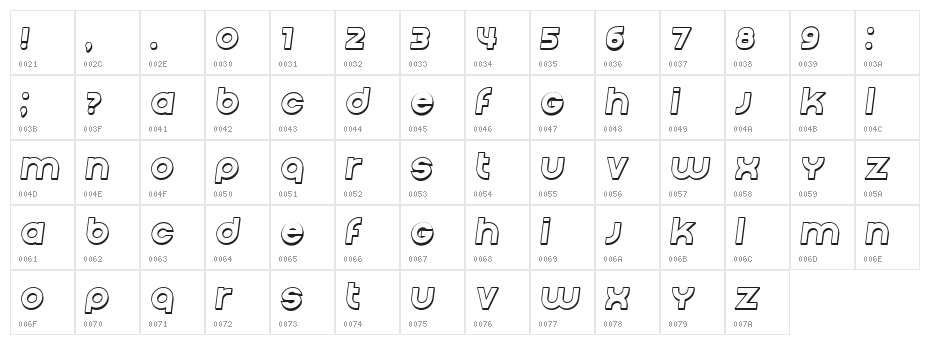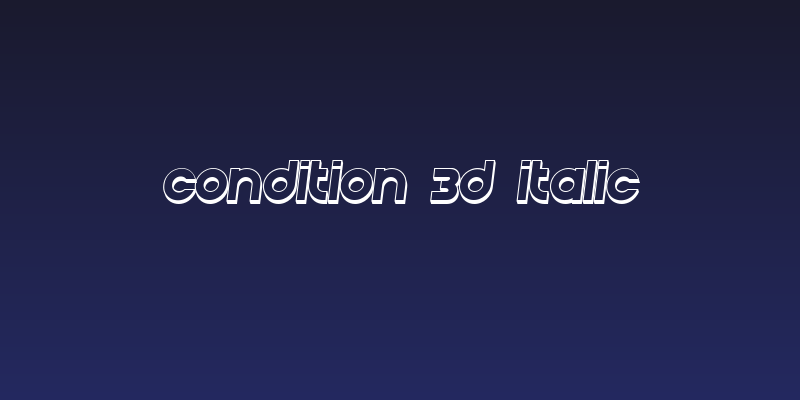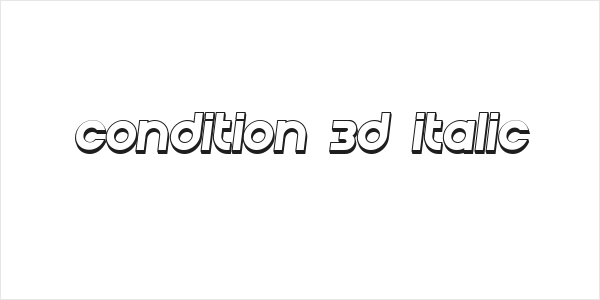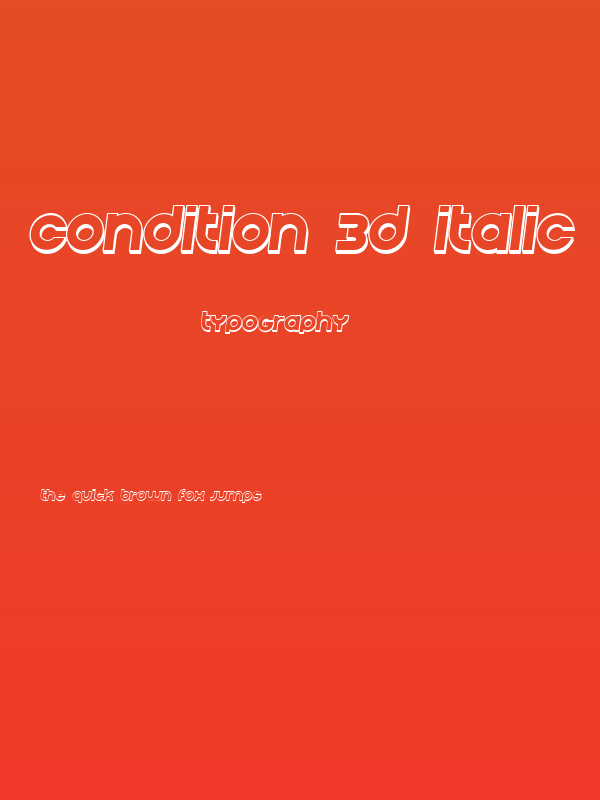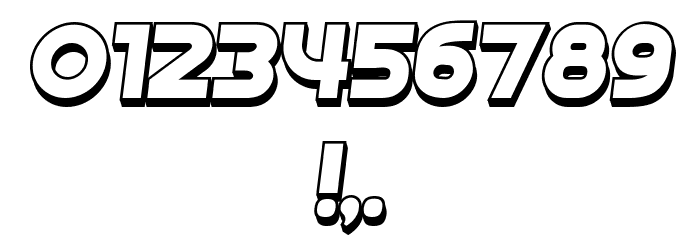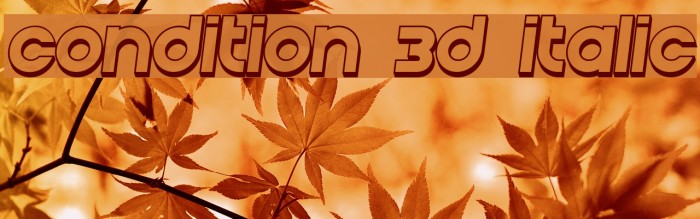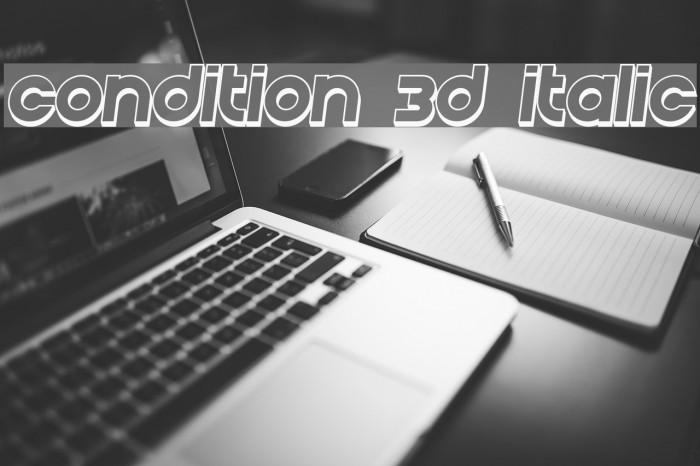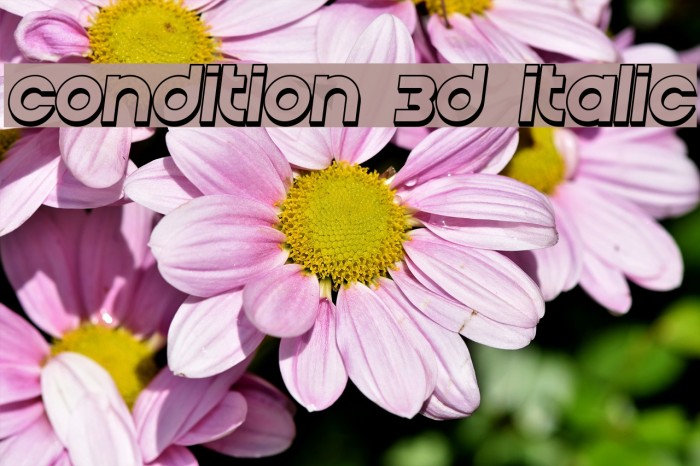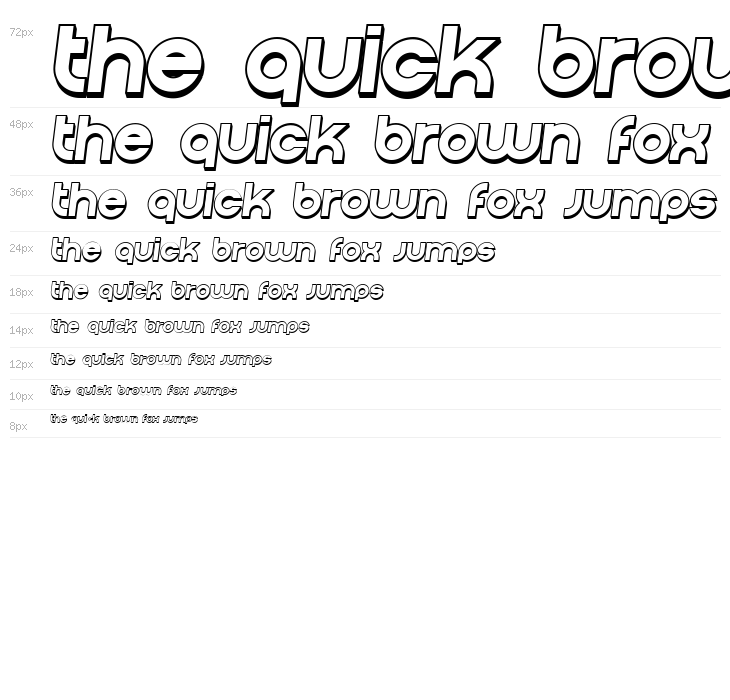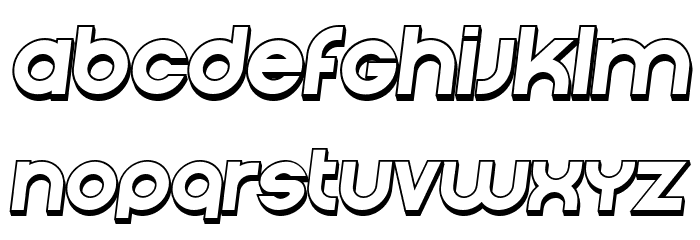
Condition 3D Italic Font
This font features a bold, three-dimensional style with a distinct italic slant, giving it a dynamic and modern appearance. The characters are outlined, creating a shadow effect that enhances the 3D illusion. The font maintains a consistent thickness throughout, contributing to its bold presence. The rounded edges of the letters add a touch of softness, balancing the boldness with a friendly feel. The numbers and special characters follow the same design principles, ensuring uniformity across all elements. This font is particularly eye-catching and suitable for projects that require a strong visual impact.
| Proposed Projects | Ideal for posters, headlines, logos, and any design needing a striking, modern look. |